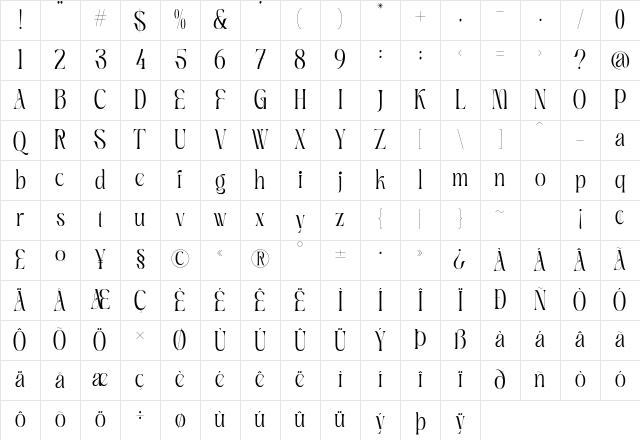
Mexa Regular Free Font
Mexa Regular
Foundry: Nirmana Visual
Designer: Sigit Dwipa Raharjo
Complete Mexa Regular glyph index. Displaying only characters natively supported by Mexa Regular font.
Design Context for Mexa
Mexa is a composed and adaptable typeface that performs quietly and consistently across a wide range of design contexts.